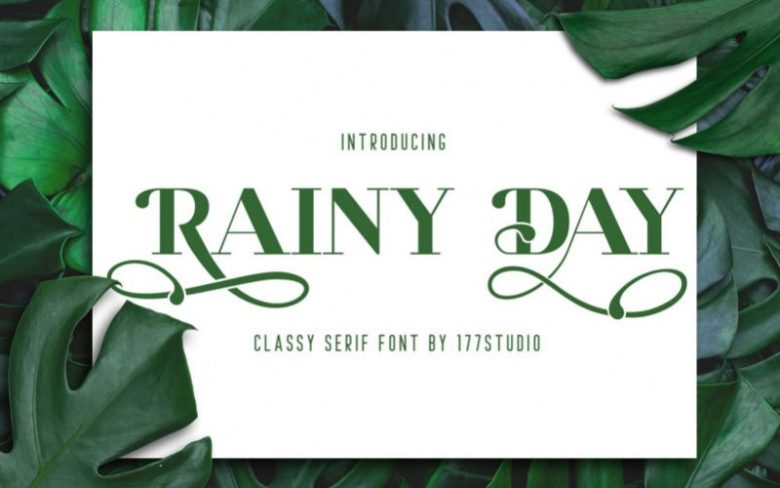
RAINY DAY SERIF FONT
RAINY DAY Serif Font is an elegant and magical serif font. It can easily be matched to an incredibly large set of projects, so add it to your creative ideas and notice how it makes them stand out!